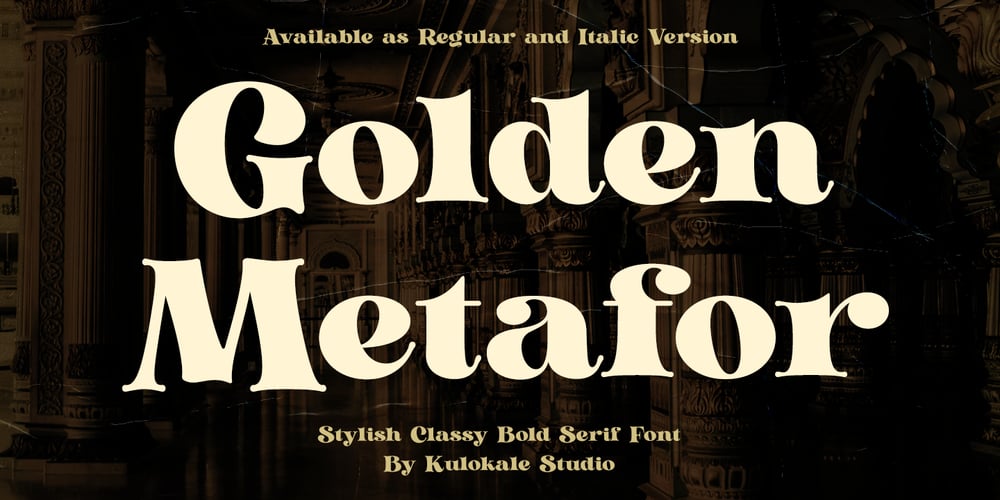
Golden Metafor Font Family was designed by Eko Nur Cahyo and published by Kulokale. Golden Metafor contains 2 styles and family package options. Thanks for checking out Golden Metafor! It’s a classy, cold serif font with beautiful characters and also ligatures which makes it easy for you to create a logo for your personal branding and your business beautifully.Golden Metafor is perfect for many different projects such as logos & branding, invitation, stationery, wedding designs, social media posts, advertisements, printed quotes, product packaging, product designs, label, photography, watermark, special events or anything.I highly recommend using a program that supports OpenType features and Glyphs panels such as Adobe Illustrator, Adobe Photoshop CC, Adobe InDesign, or CorelDraw, so you can see and access all Glyph variations.This font is encoded with Unicode PUA, which allows full access to all additional characters without having special design software. Mac users can use Font Book, and Windows users can use Character Map to view and copy one of the extra characters to paste into your favorite text editor / application. Thank you.